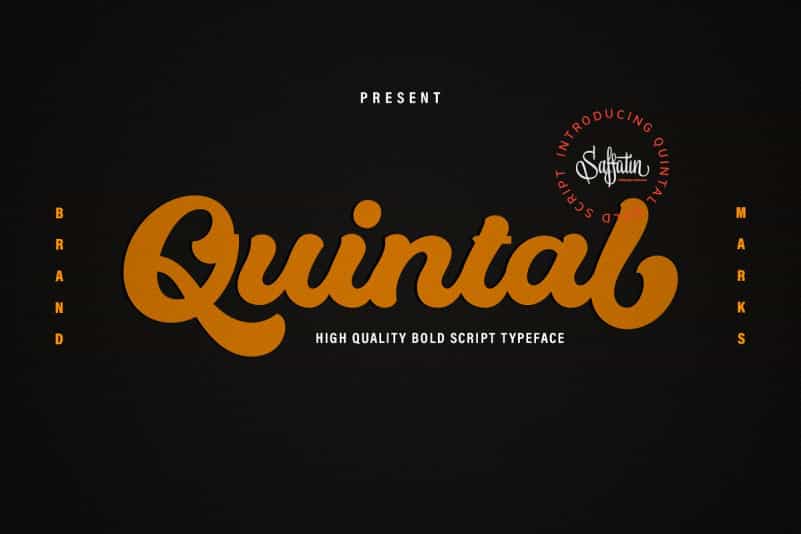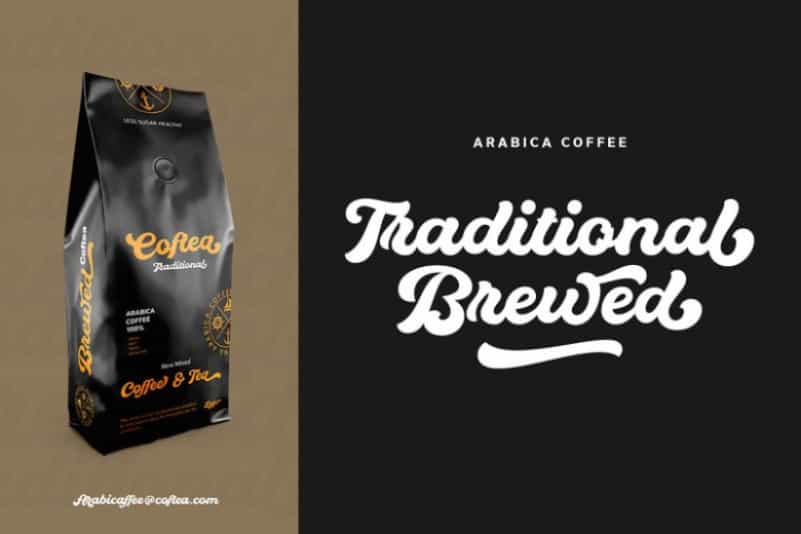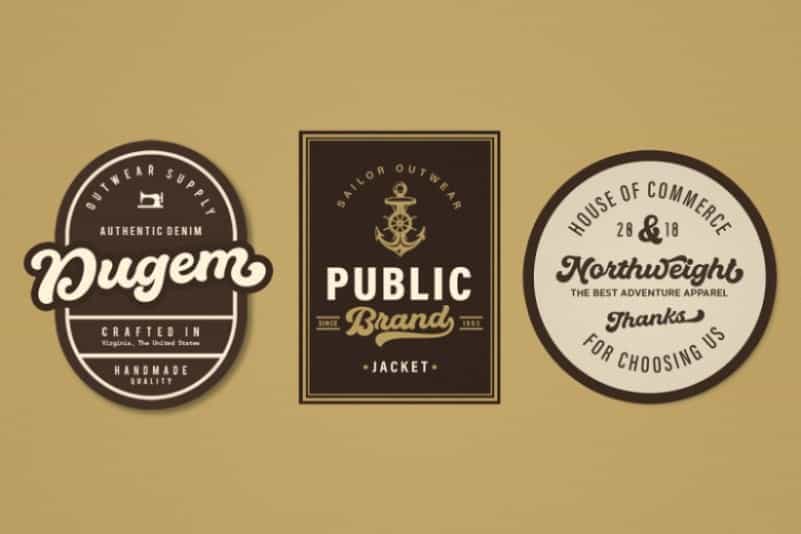
Discover Quintal Bold Script Font, part of the Brush Calligraphy collection—a versatile and unique font perfect for adding a personal touch to your projects. Download it for free and enjoy crafting designs with style, from invitations to social media posts. This font is available exclusively for personal use, giving you the freedom to create without limits. Unlock your creativity with Quintal Bold Script Font today!
Introducing Quintal Font. It is made and distributed by Saffatin Co. Quintal Bold Script is a high quality and multipurpose script typeface. This bold typeface is a fun way to make your content look eye-catching. They are small and can be put together to work efficiently.